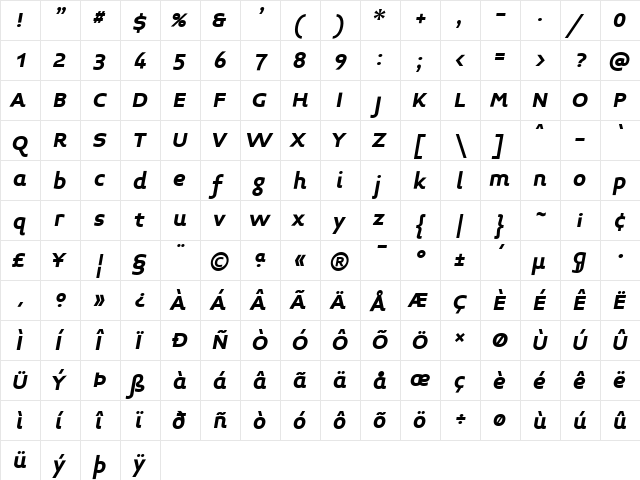
Midiet Sans Italic Bold
Design Context for Midiet Typeface
Midiet takes a measured approach to typography — its balanced proportions and neutral character make it a reliable workhorse for both digital and print work. Its italic angle brings a sense of urgency and motion to the letterforms. The heavy weight commands attention and anchors typographic hierarchies.
Pro Tip: Use Midiet for emphasis, pull quotes, and subheadings where its slanted energy can add rhythm to the layout.